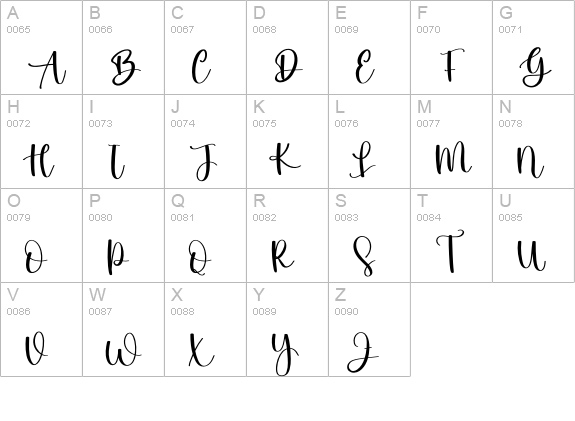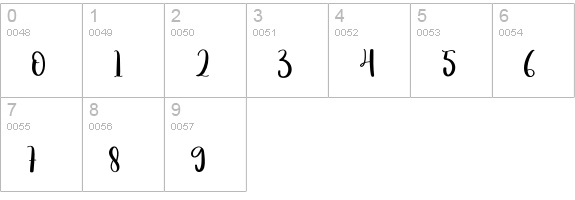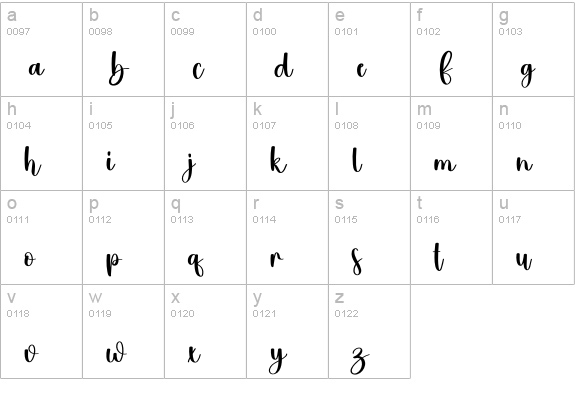
Discover the elegant and sophisticated Smittson font, a timeless typeface that exudes class and style. With its clean lines and modern aesthetic, Smittson is perfect for a wide range of design projects, from branding to editorial layouts. This versatile font effortlessly blends classic charm with a contemporary twist, making it a must-have addition to any designer's toolkit.